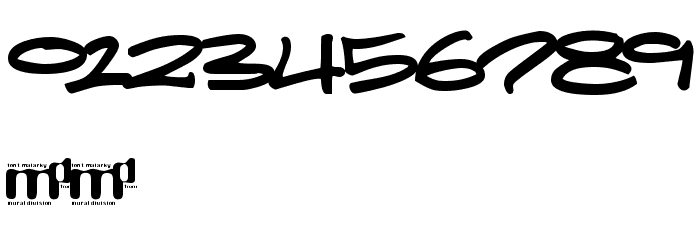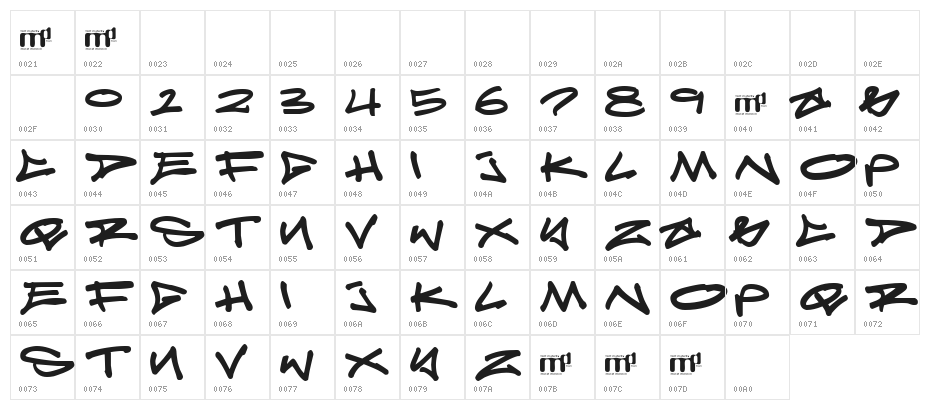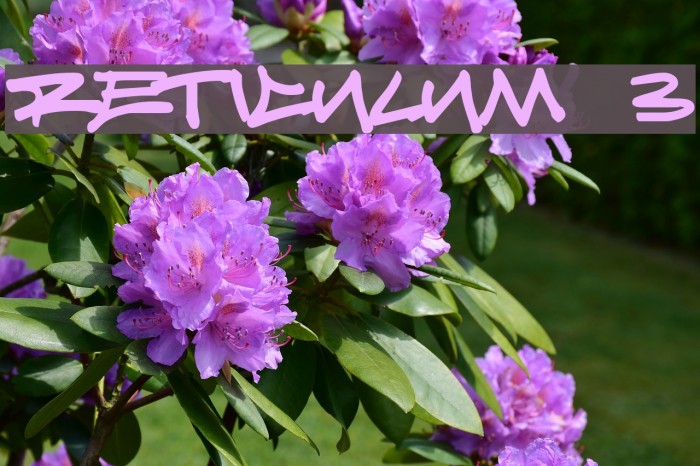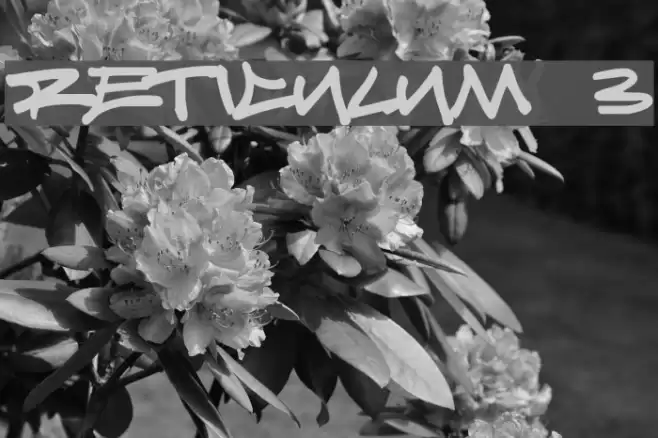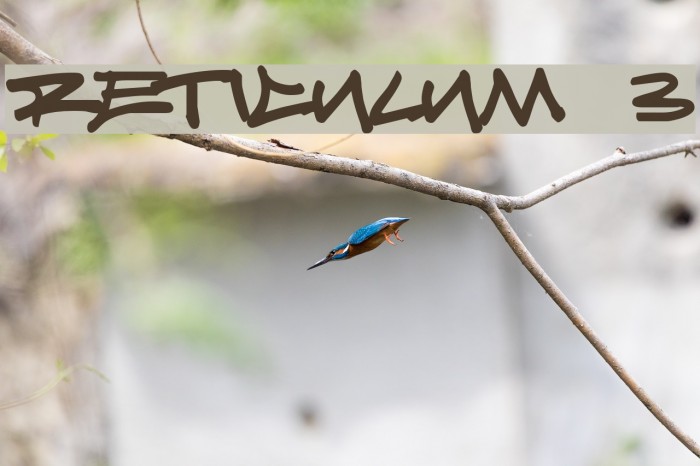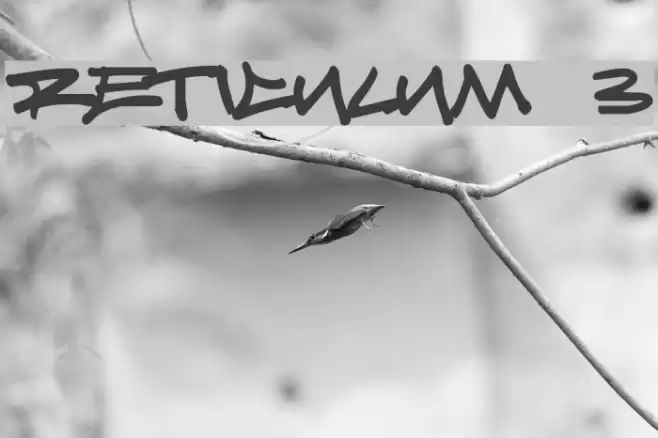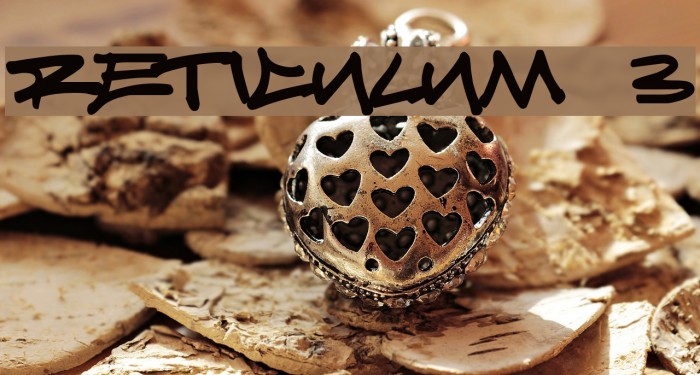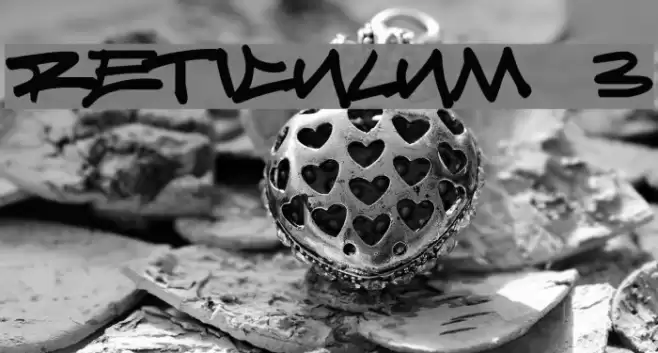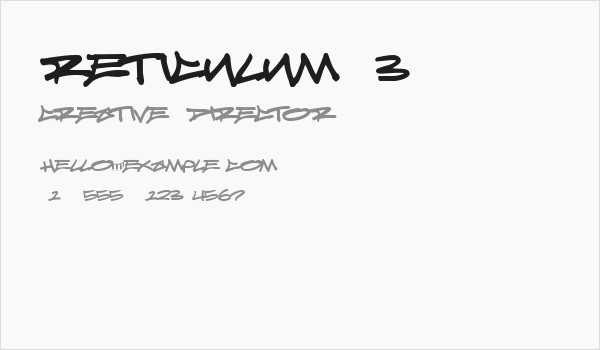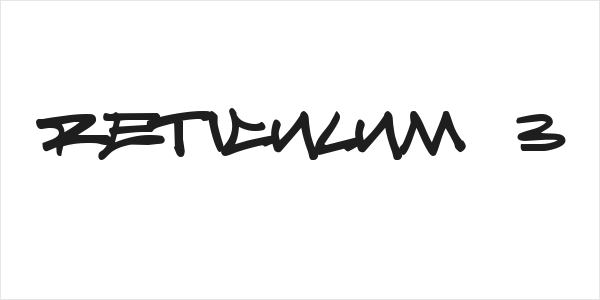
Reticulum 3 Font
Reticulum 3 Description
This font exudes a bold, graffiti-inspired aesthetic with its dynamic and energetic strokes. The characters are designed with a hand-drawn style, featuring sharp angles and a sense of movement that captures the essence of street art. The uppercase and lowercase letters maintain a consistent flow, while the numerals and special characters integrate seamlessly into the overall design. This font's unique style makes it stand out, offering a modern and edgy vibe that is perfect for creative projects.